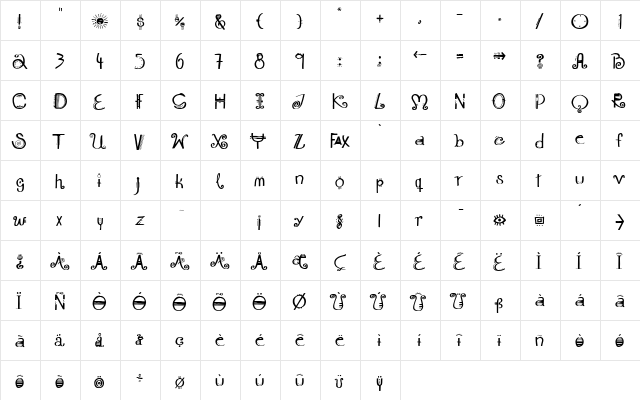
Monterrey Regular
Design Context for Monterrey Typeface
Monterrey is a composed and adaptable typeface that performs quietly and consistently across a wide range of design contexts.